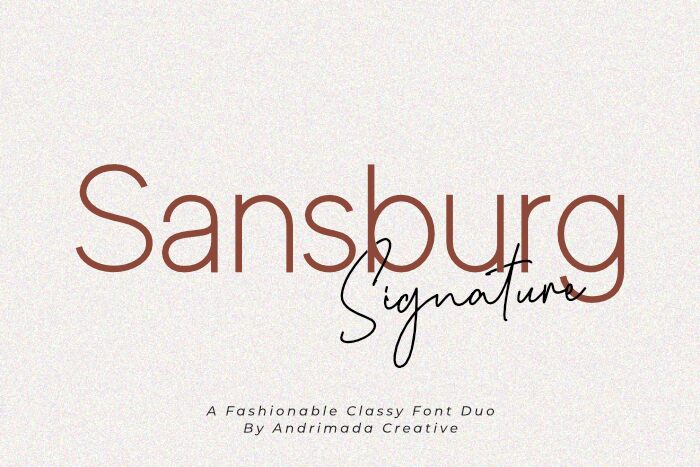
Sansburg is a light sans serif font designed by Andri Ardianto and Madatype Studio. Its clean, minimalistic design makes it perfect for a range of projects from logos to magazines, websites to posters. Sansburg is versatile enough for headlines and body copy alike and its subtle curves give it an elegant feel. Its light weight makes it suitable for larger print work as well as smaller digital projects. With Sansburg, you can make your mark with a timeless, stylish font every time.